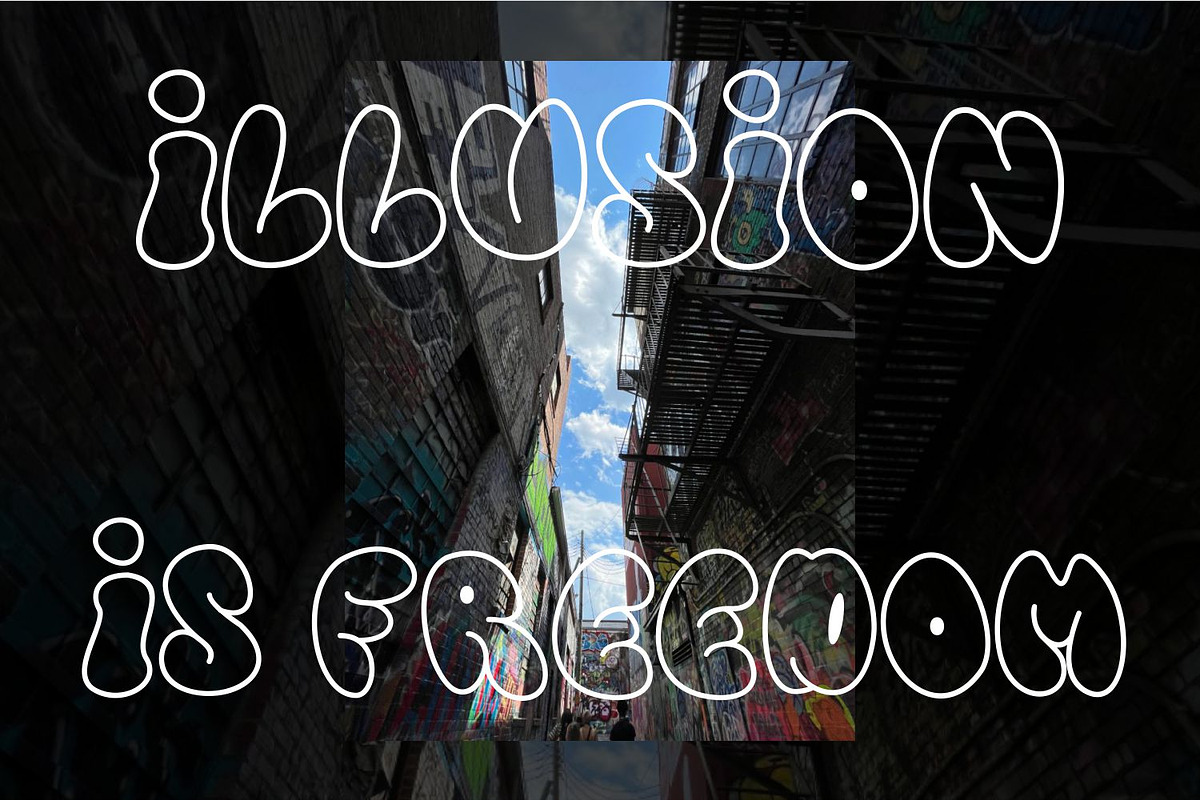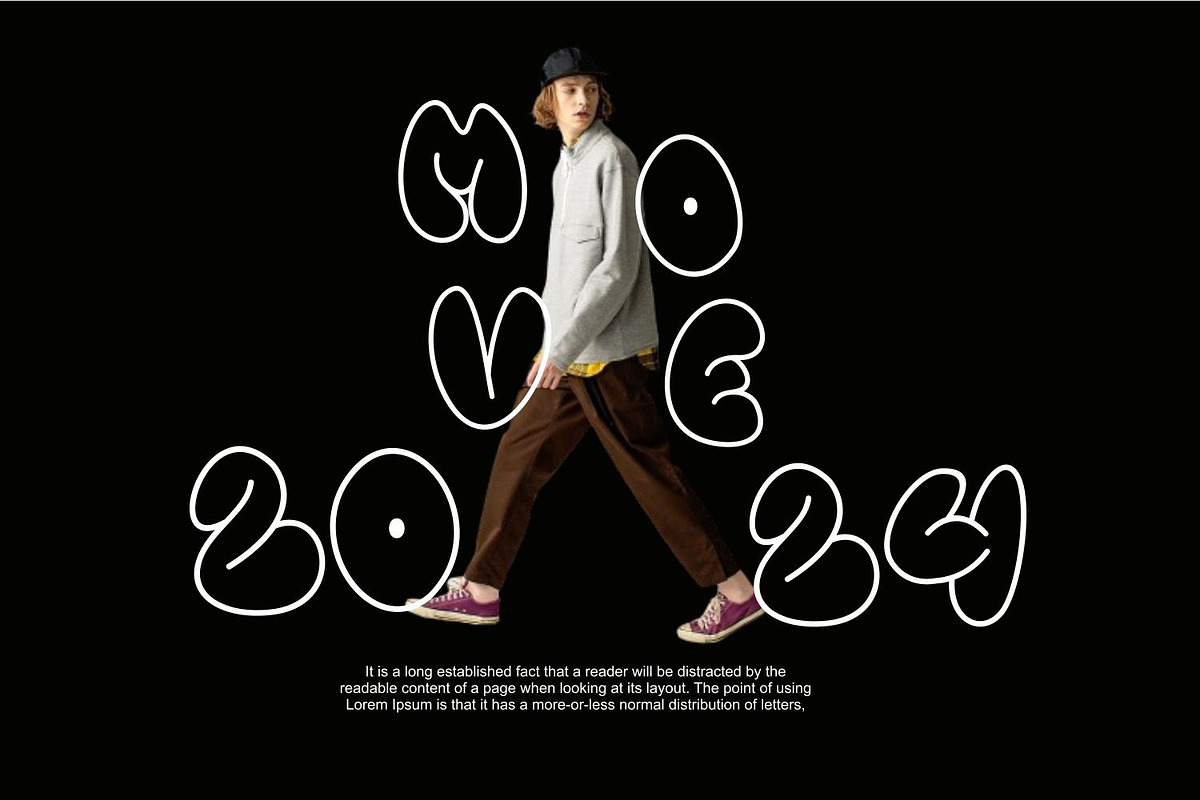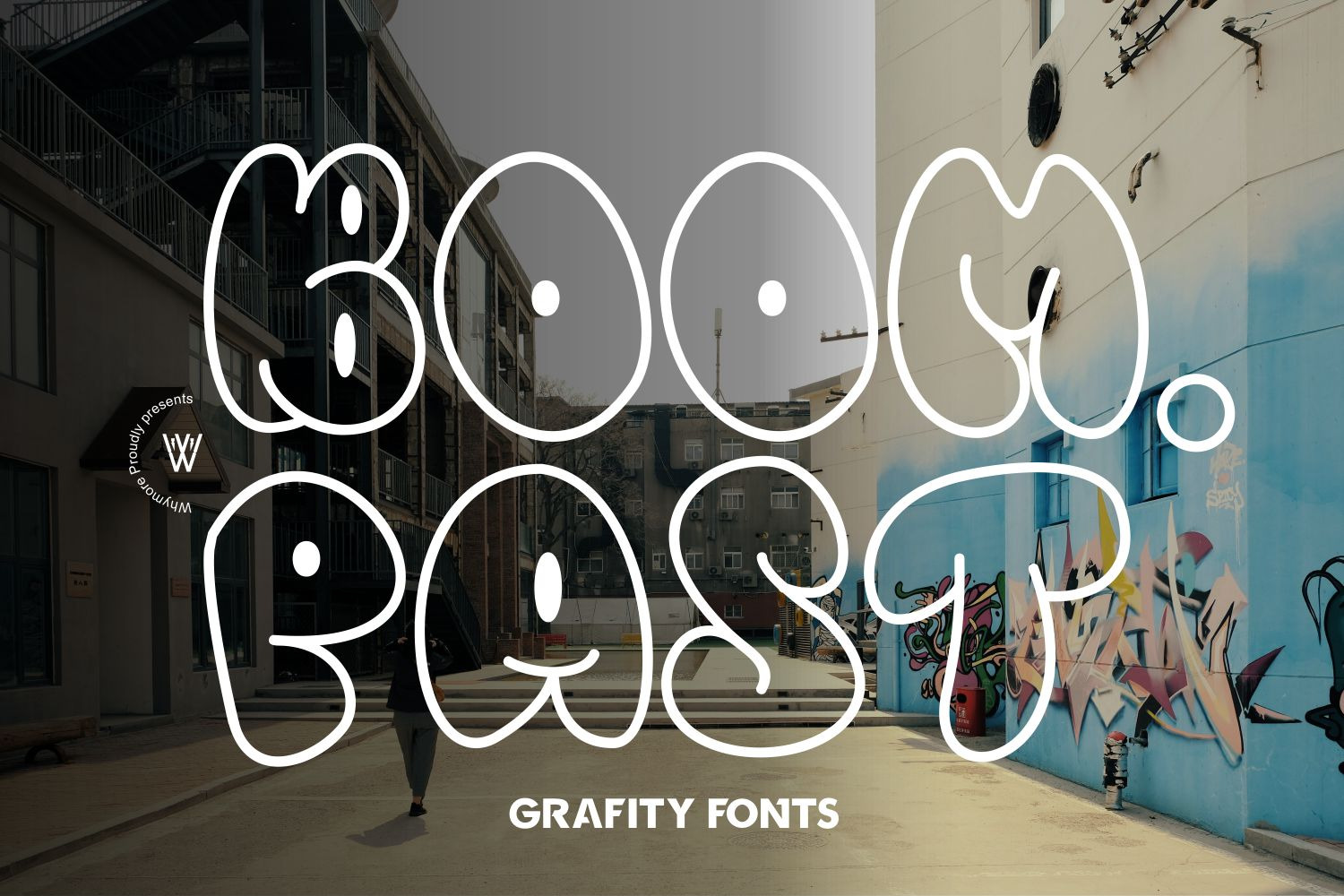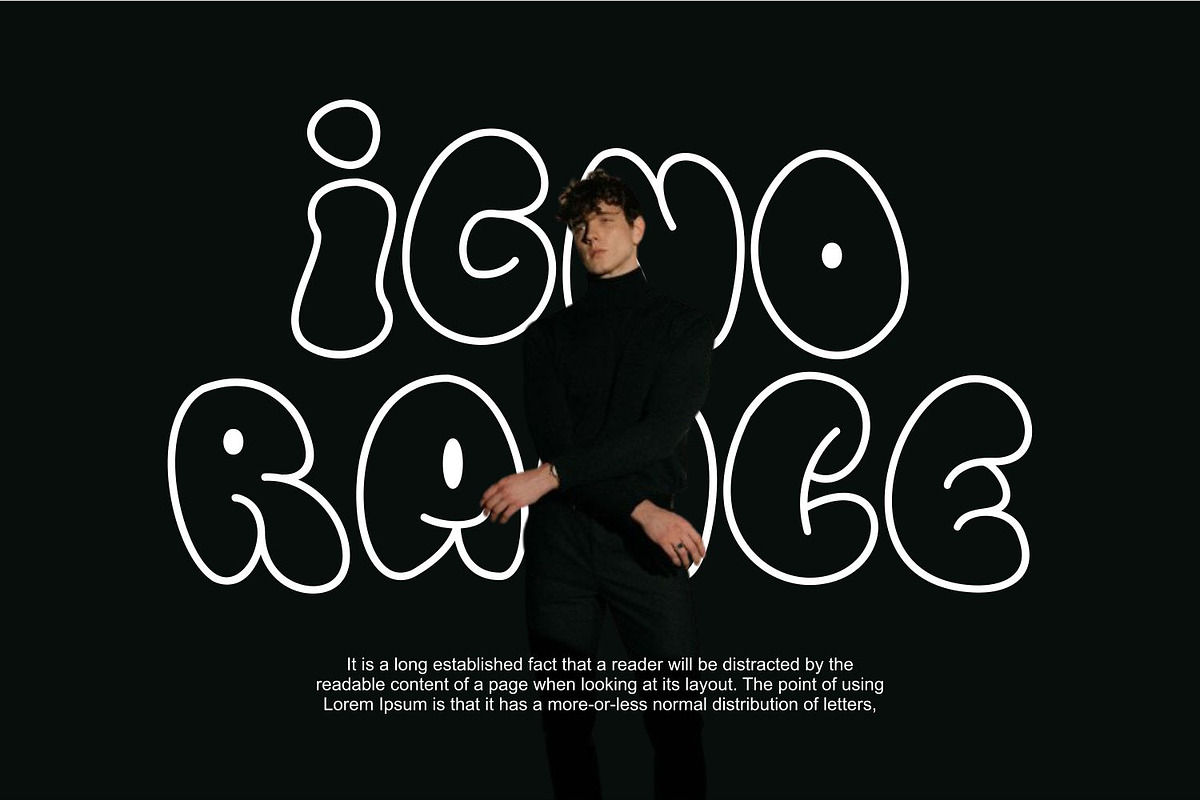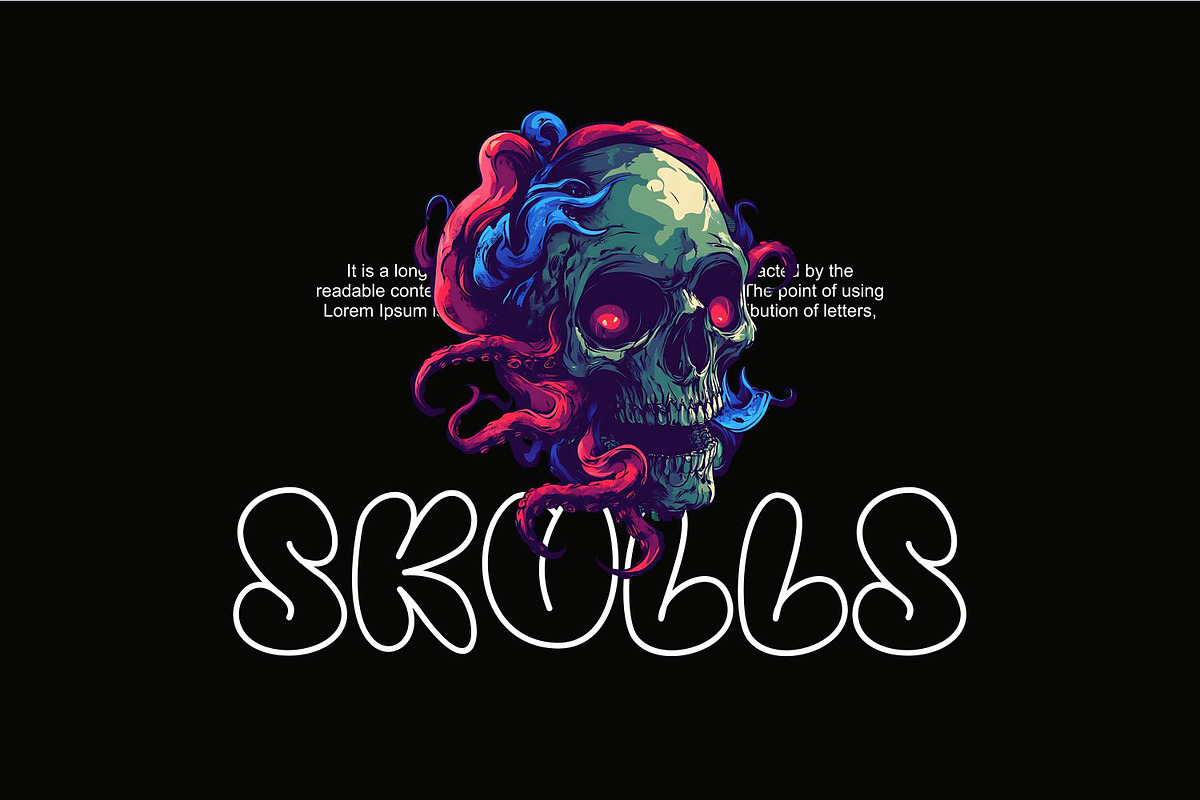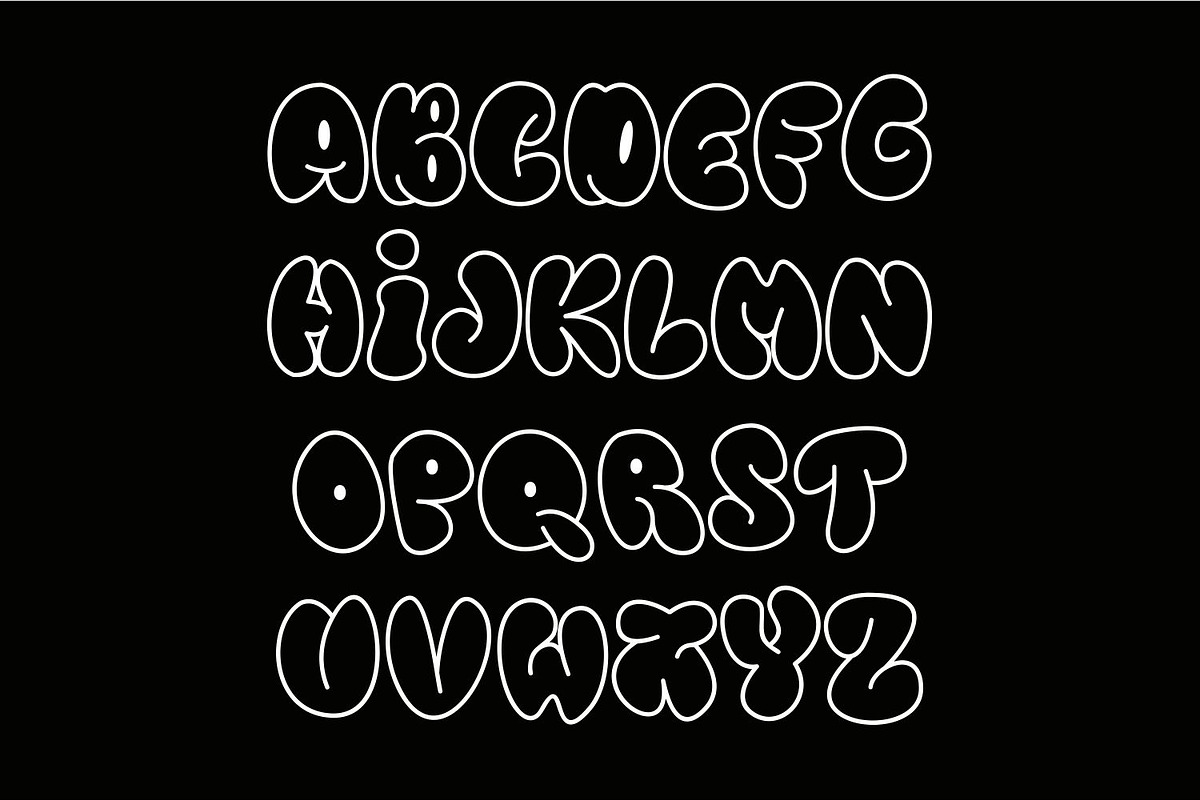
Boom Past Grafity Line Font
Boom Bast is a dynamic graffiti font that merges urban vibes with artistic flair. Perfect for streetwear designs, posters, and digital art, this font embodies the raw essence of graffiti culture. Its bold and expressive style ensures your projects stand out with a unique, energetic look.